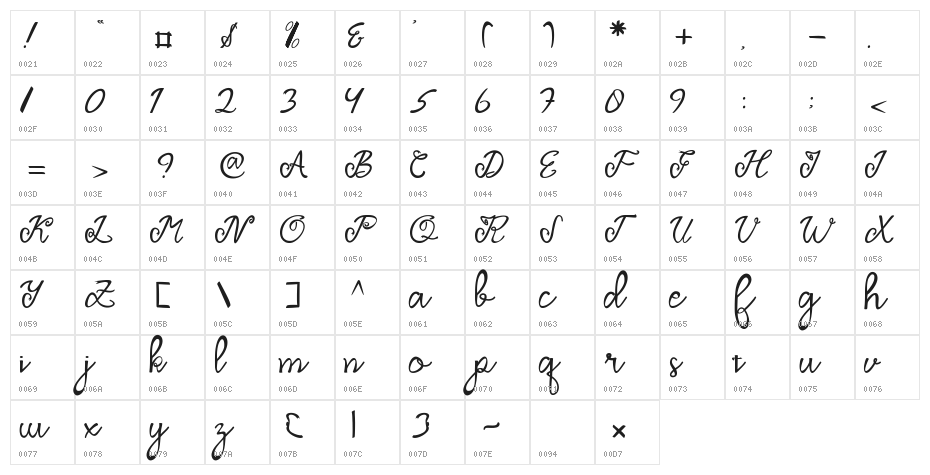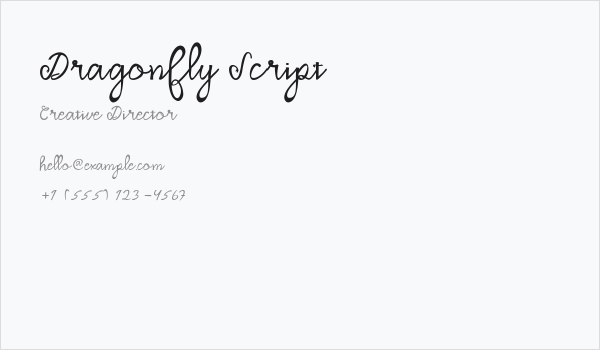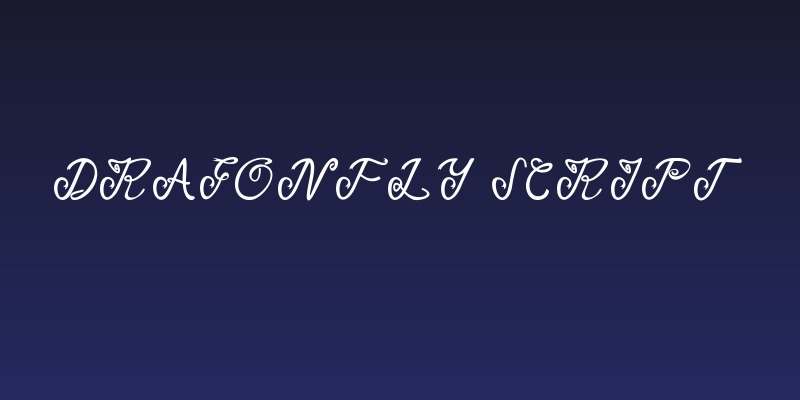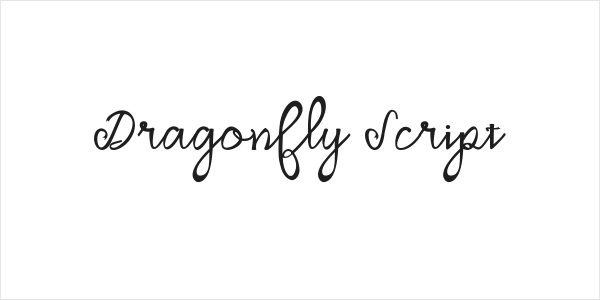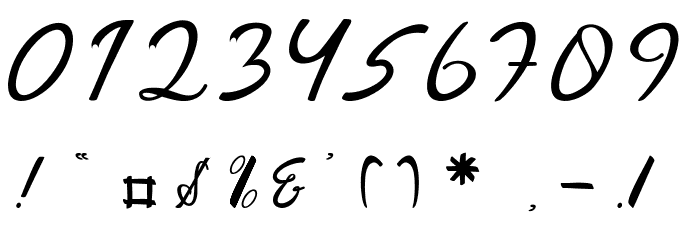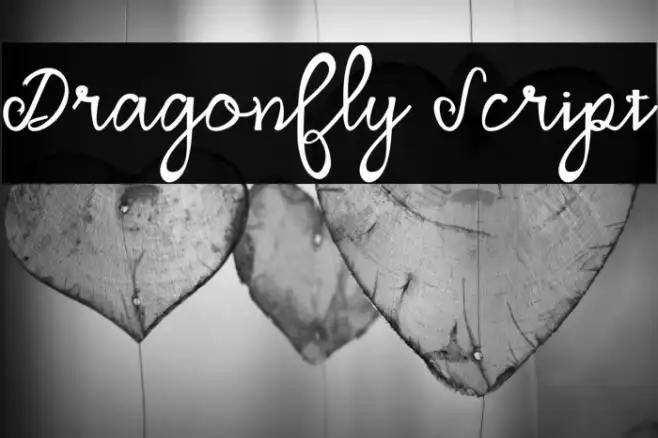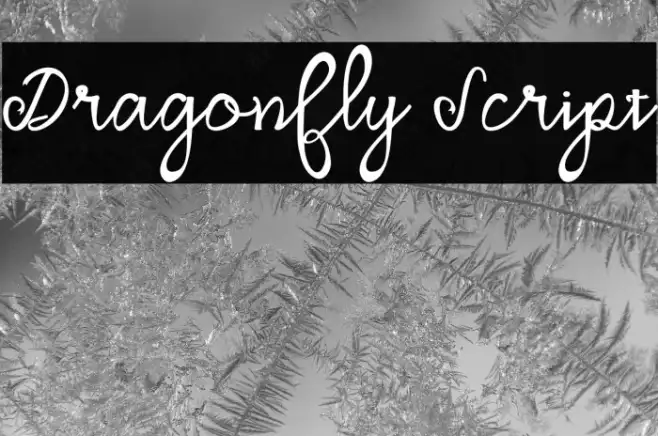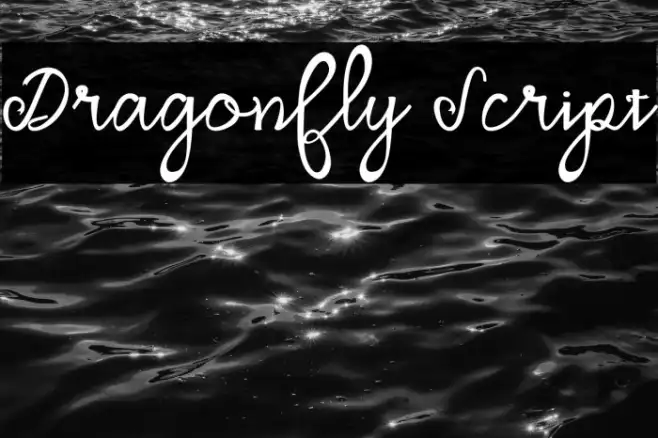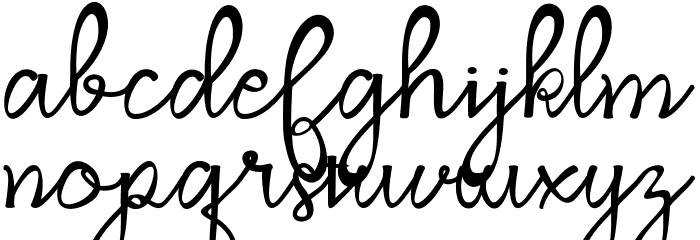
Dragonfly Script Font
Dragonfly Script Description
This elegant script font features a flowing, cursive style with a whimsical touch. The uppercase letters are characterized by their looping flourishes and smooth curves, giving them a sophisticated yet playful appearance. The lowercase letters maintain a consistent fluidity, with each character seamlessly connecting to the next, enhancing the script's natural handwriting feel. The numerals are equally graceful, with a slight slant that complements the overall design. Special characters are thoughtfully crafted, maintaining the font's cohesive aesthetic. This font's charm lies in its ability to convey elegance and creativity, making it suitable for a variety of design projects.